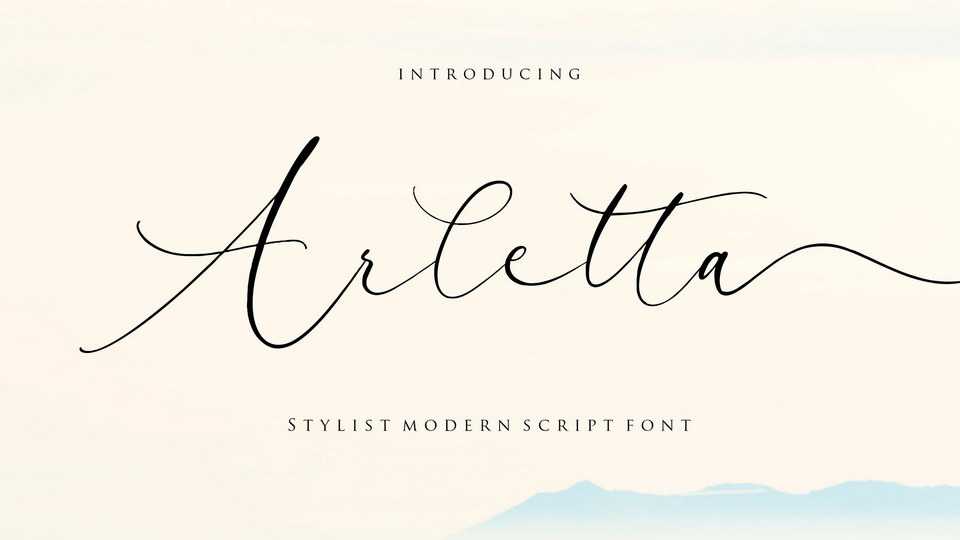
Download Arletta font, an elegant modern calligraphy script typeface. Arletta is perfect for branding, magazine, social media, wedding, quotes or just used to express words above the background.
Designer: Balpirick Studio